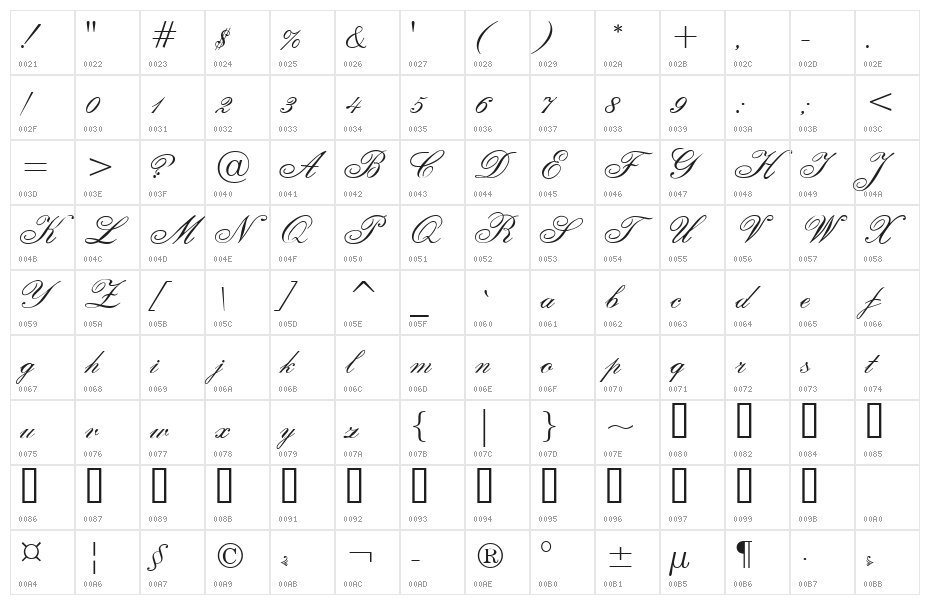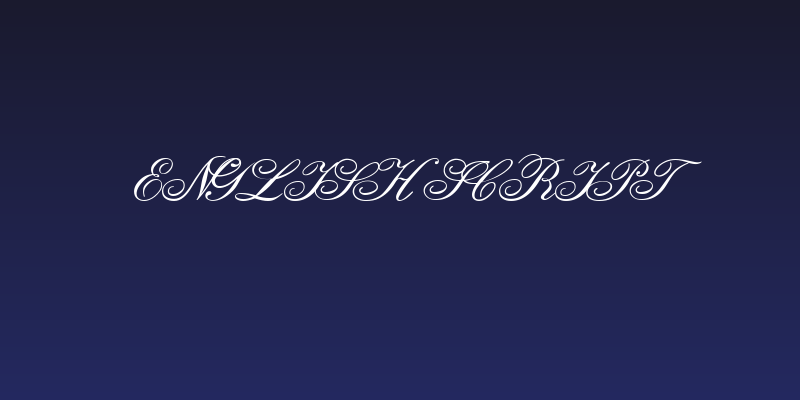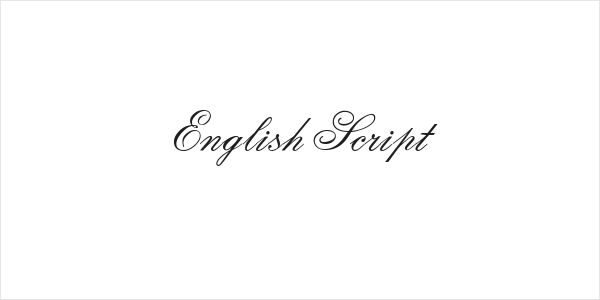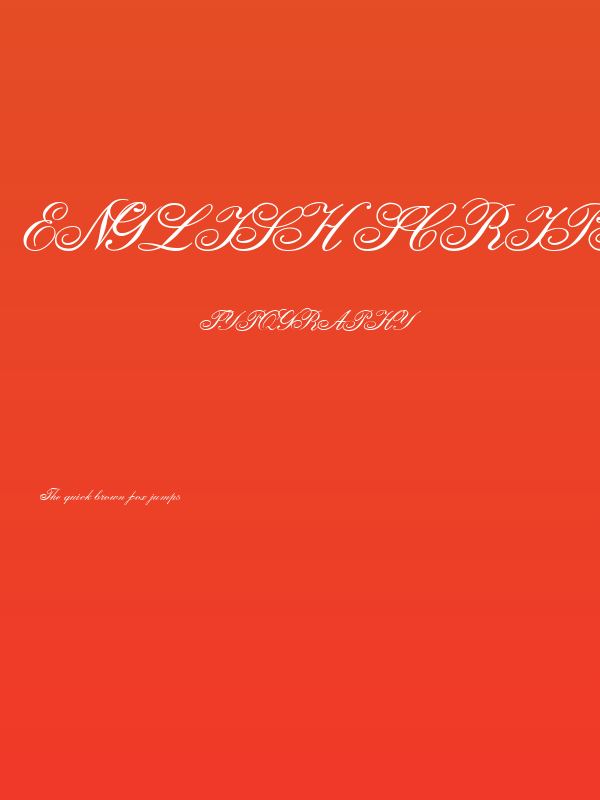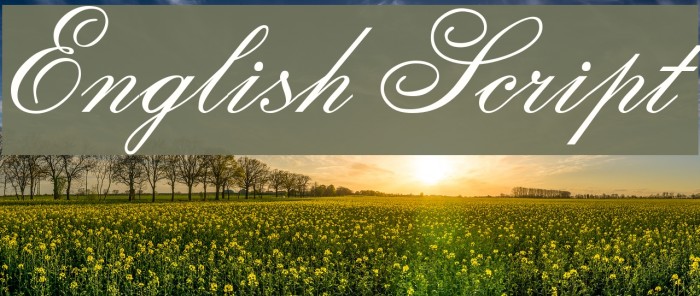
English Script Font
English Script Description
This elegant script font features beautifully flowing characters with intricate loops and swashes, giving it a sophisticated and classic appearance. The uppercase letters are adorned with elaborate flourishes, while the lowercase letters maintain a smooth, connected style that mimics traditional handwriting. The numerals are consistent with the overall script theme, offering a cohesive look. Special characters are designed with the same attention to detail, enhancing the font's decorative appeal. This font is perfect for projects that require a touch of elegance and formality.
| Overall Style | Classic |
| Use Case | Logos, Invitations, Decorative text |
| Proposed Projects | Wedding invitations, luxury branding, elegant stationery, formal event programs. |